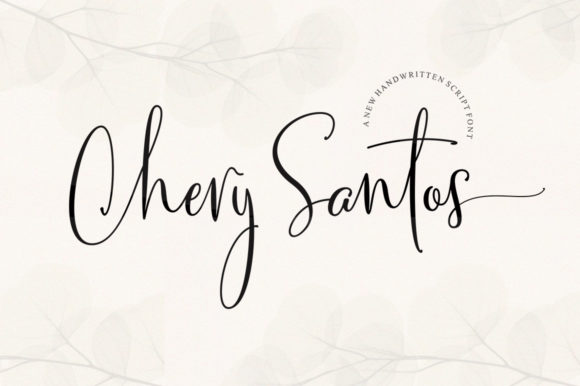
Welcome to the world of Chery Santos Font, where elegance meets charm in a captivating dance of letters. This script font, brought to life by the creative minds of Aqeela Studio, is not just a collection of characters; it's an artistic expression that will transform your designs into masterpieces.
Chery Santos Font possesses an undeniable allure that will make your words shine. Its smooth lines flow effortlessly, resembling the gentle strokes of a skilled calligrapher. The varying baseline adds a dynamic touch, creating a sense of rhythm and movement that draws the eye. And the gorgeous glyphs, with their intricate details, add a touch of sophistication that will elevate your designs to new heights.
Beyond its aesthetic appeal, Chery Santos Font is a practical choice for designers seeking both beauty and functionality. Its PUA encoding ensures effortless access to all glyphs and swashes, making it a breeze to incorporate stunning variations into your designs. Experiment with different alternates to create eye-catching headlines, subheadings, and body text that will leave a lasting impression on your audience.